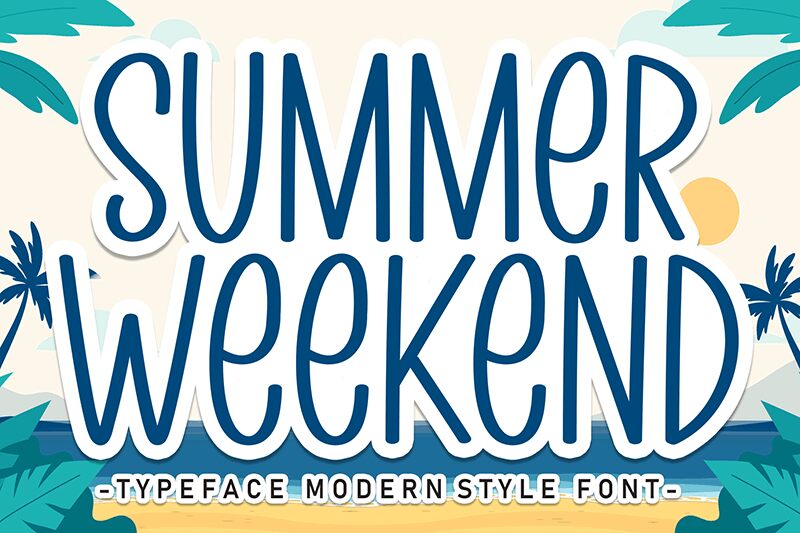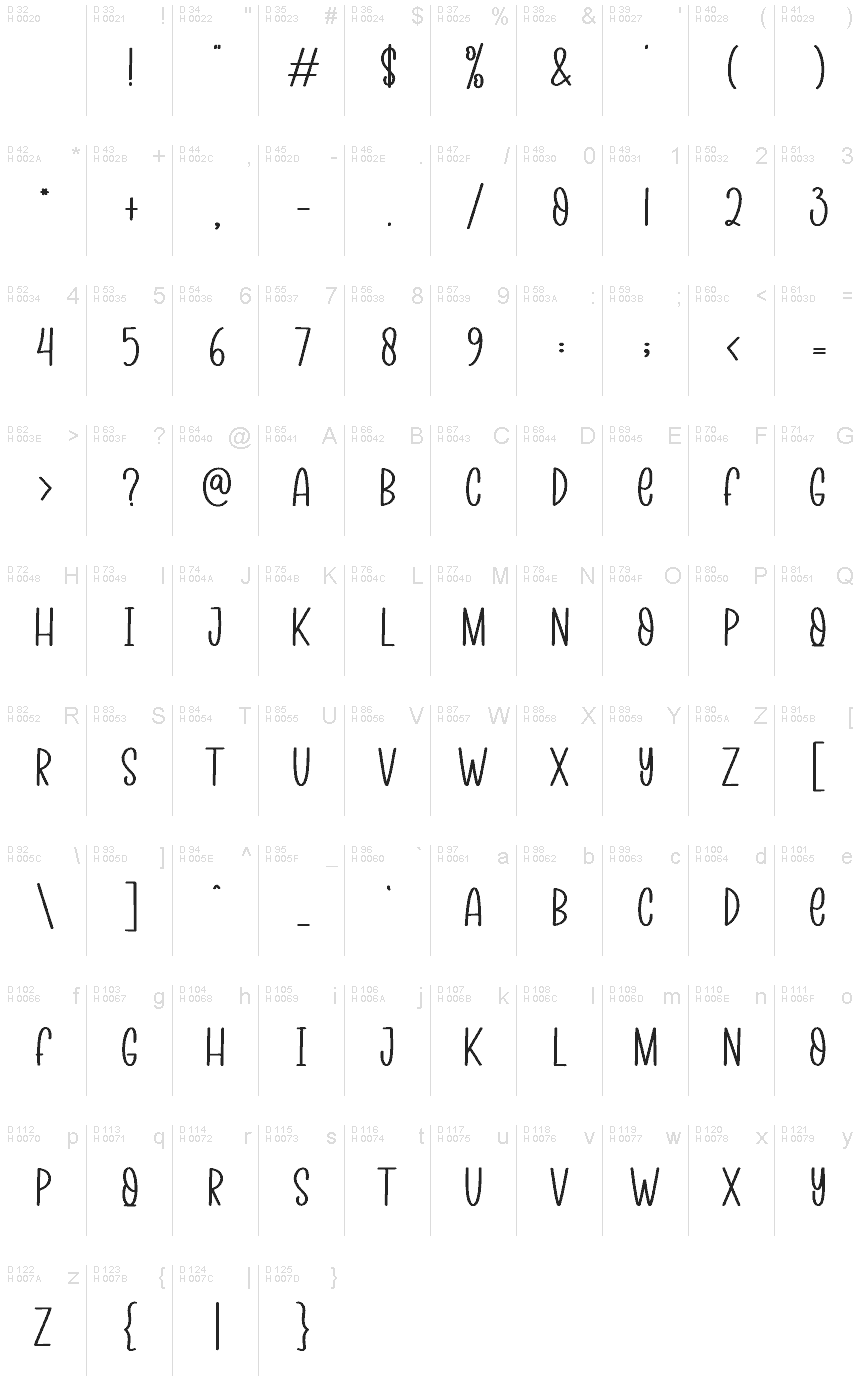
Summer Weekend
Summer Weekend font by Andi Moz is a light, condensed handwritten display font with a casual aesthetic. Its smooth curves and organic flow create an instant relaxed vibe for both display and long-form body text of various scales. Featuring a natural look, the minimalist letterforms are designed to fit adjacent letters nicely while looking effortless on their own.
This free handwritten font would look great in logos of food brands or fashion businesses, package design projects, book covers, apparel prints and embroidery designs, invitations and greeting cards for special events/holidays, social media posts for Instagram or Twitter etc.